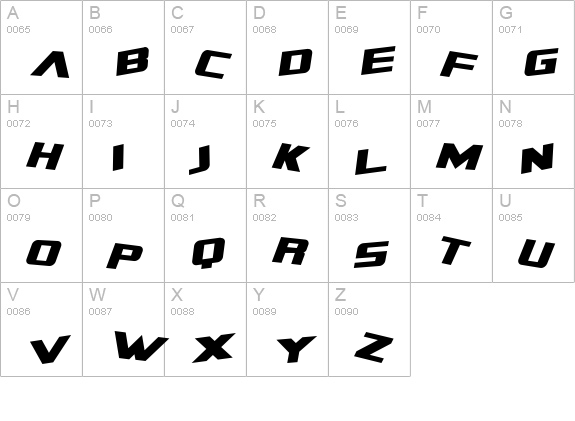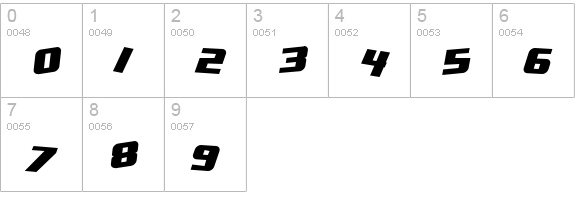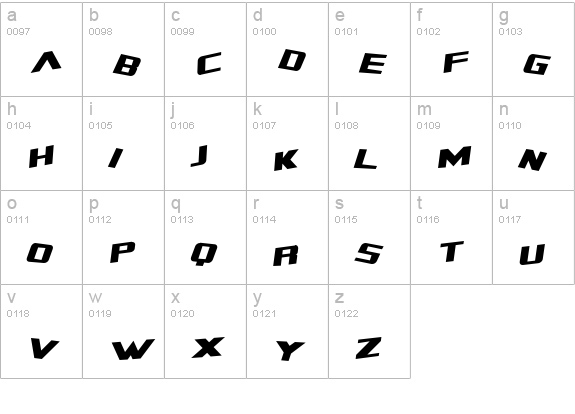
Zero Gravity Extended Italic is a distinctive, extended-width, italic variant in the Zero typeface family \xE2\x80\x94 well suited to design and typography projects.